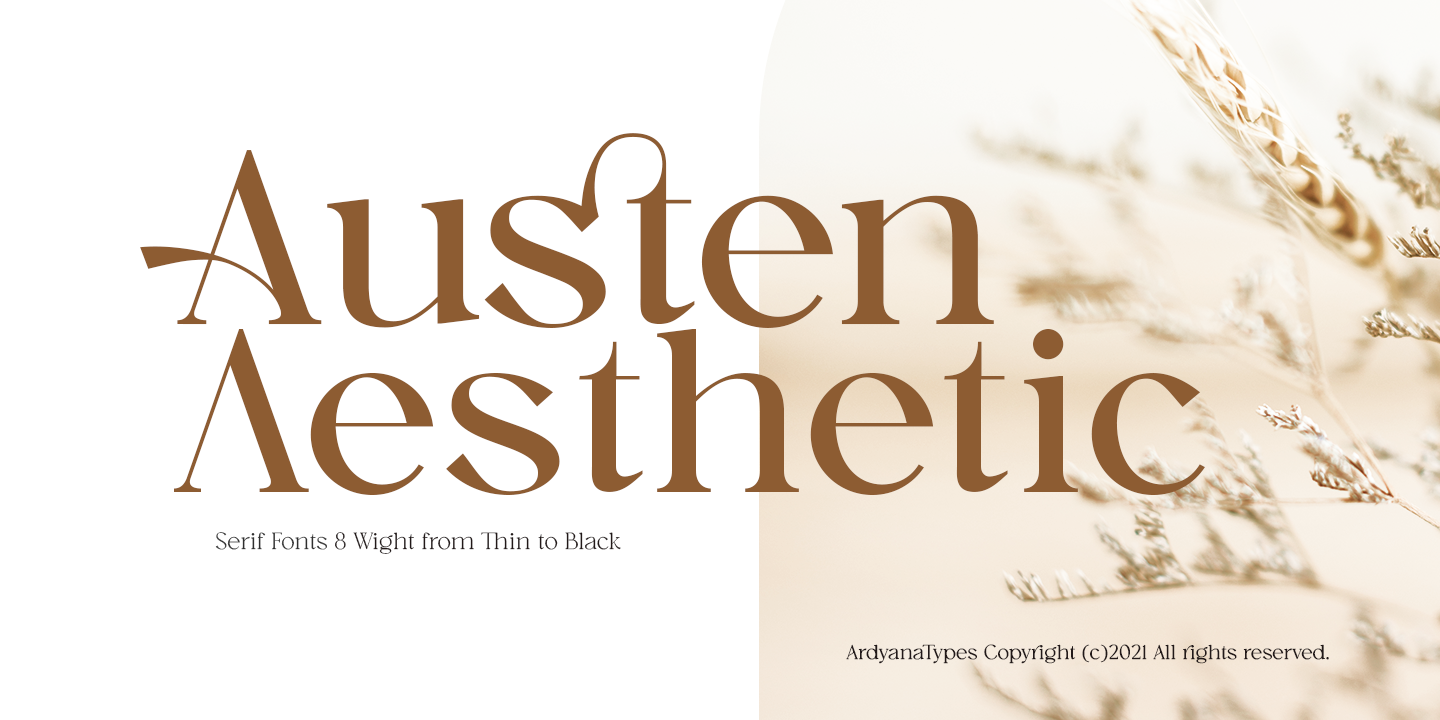
Austen Aesthetic Font Free Download – A Refined Serif with Regency-Era Elegance
Step into the world of Jane Austen with Austen Aesthetic Font Free Download, a delicate yet distinguished serif that captures the romantic sophistication of 19th-century literature. Perfect for wedding stationery, book designs, and feminine branding, this font delivers timeless grace with modern readability.
Why Austen Aesthetic Font Stands Out
1. Regency-Inspired Features
Gentle stroke contrast
Flared serif terminals
Graceful italic variants
Classic wedding invitations
Historical book covers
Feminine brand identities
Tea packaging & stationery
Literary journal layouts
3. Technical Excellence
4 weights (Light to Bold) with italics
Oldstyle figures
Extensive character set
OpenType features
DIY love letter typography
Poetry collection formatting
Period drama fan art
Vintage photo captions
Bridal boutique branding
Heritage hotel collateral
Antique book reproductions
Luxury soap packaging
Designer's Regency Tips
Combine with flowing scripts
Use parchment/wax seal textures
Accent with floral engravings
12-14pt for body text refinement
18-24pt for elegant subheads
36pt+ for romantic displays